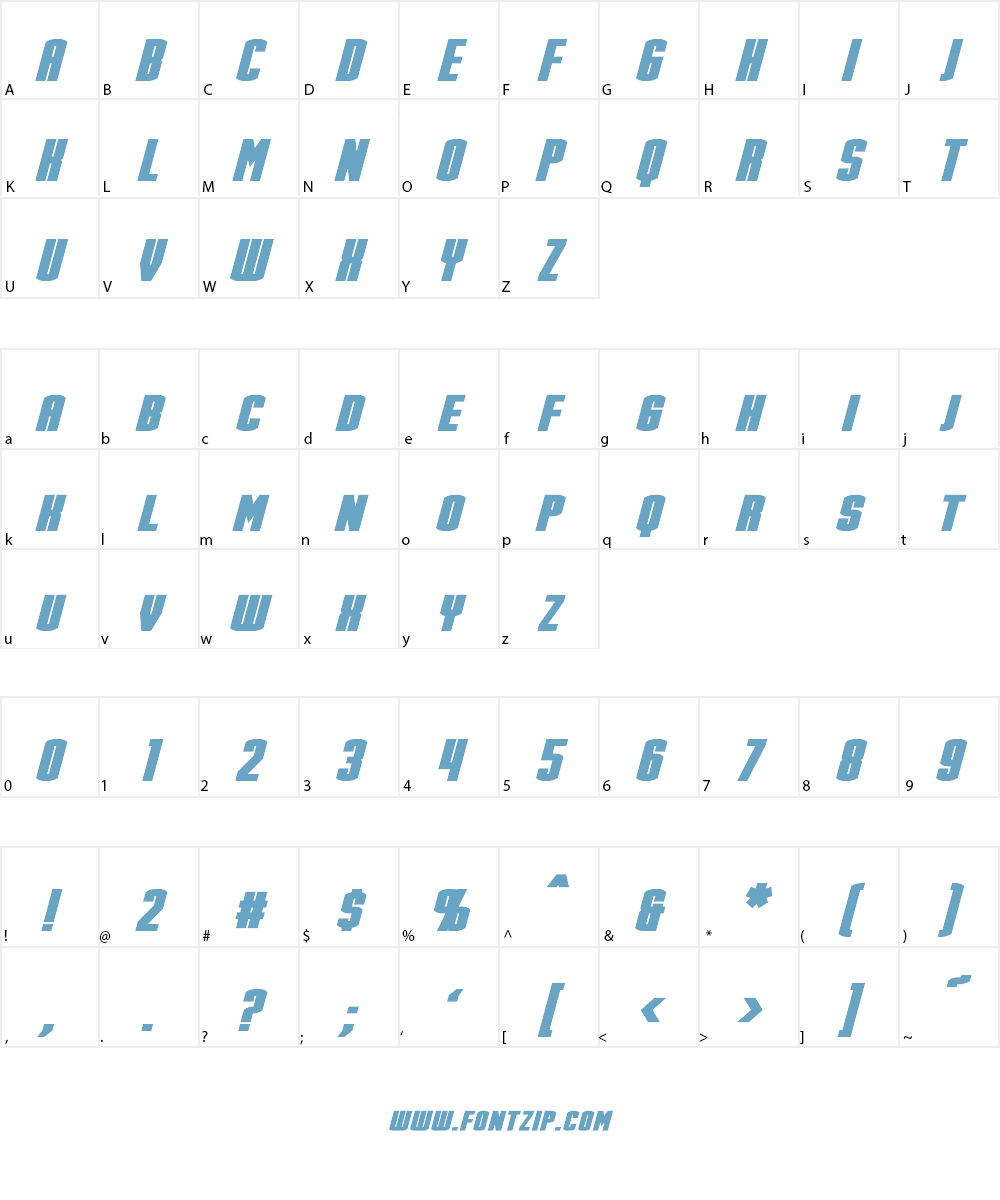
Stark, a bold, thick technological face, is heavily influenced by the title logo of the Iron Man series of movies from Marvel Comics and Paramount Pictures. Includes full alphabet, extended punctuation, Euro. Includes regular, italic, bold italic, hollow, and hollow italic versions. (Version 1.10)